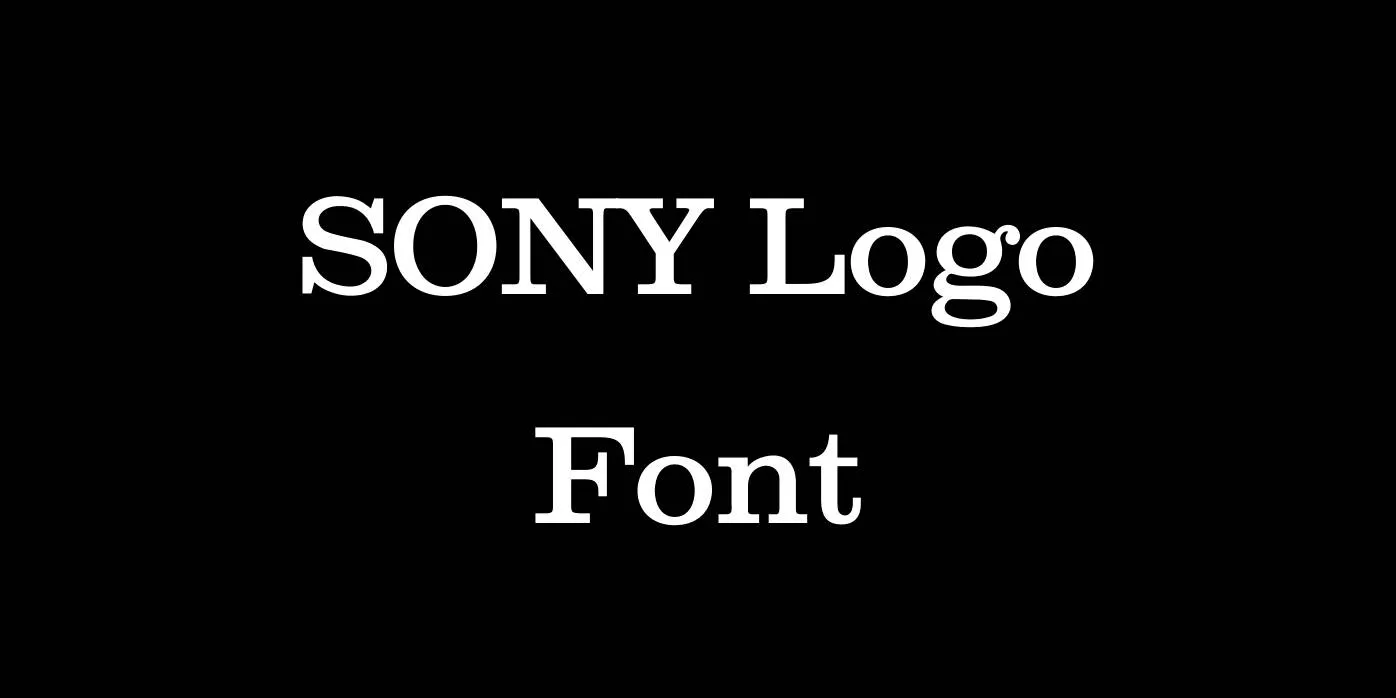
Sony Logo Font
The Sony logo font is a serif typeface designed specifically for the company. It was created by Japanese graphic designer Kenichi Nakajima. The font is used extensively in Sony’s branding and can be seen on everything from product packaging to advertisements and marketing materials. The font is based on geometric shapes, with sharp angles and clean lines.
Nakajima says he was inspired by the Bauhaus movement when designing the font. It is well respected due to its pairing function with another neutral typeface like whisper font. The typeface is unique and immediately recognizable, helping to create a strong visual identity for Sony. While the font is not available for public use, there are several similar fonts that can be used for similar purposes.